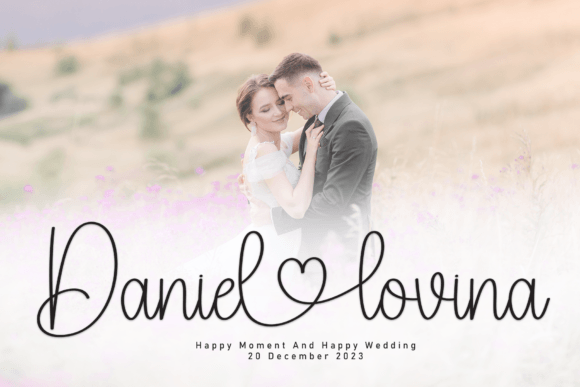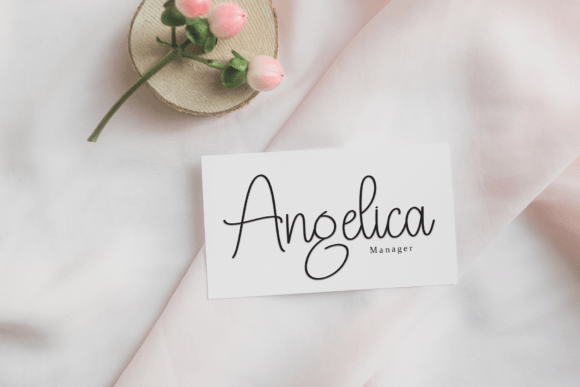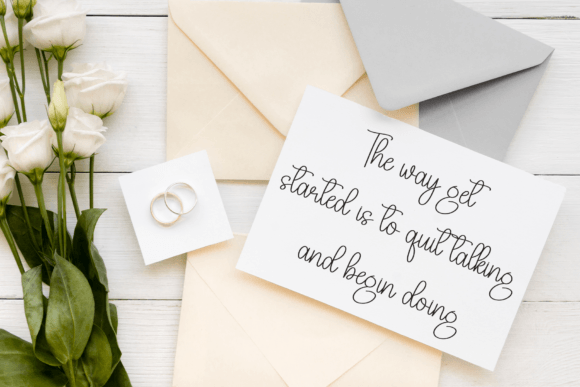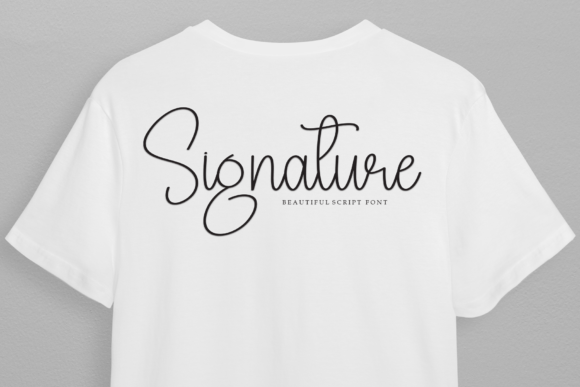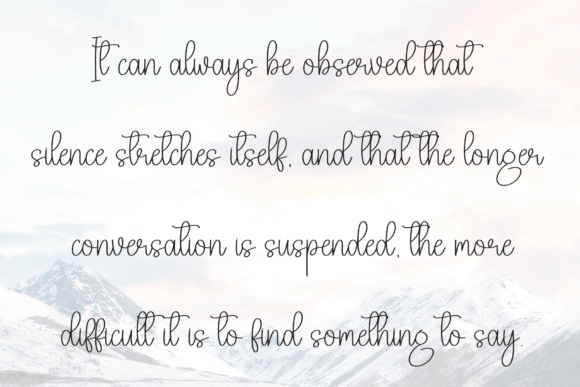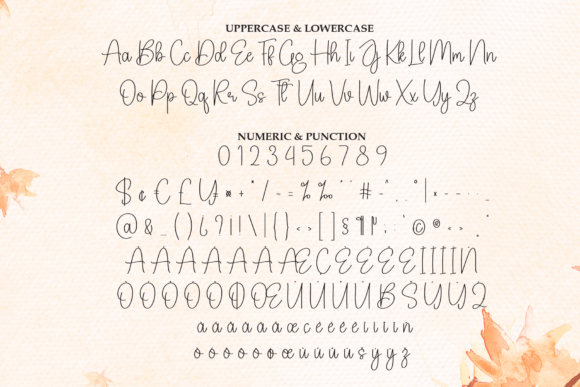
Discover the Charm of Best Time Font: Elevate Your Designs with a Sweet and Friendly Handwritten Style
Are you on the hunt for a font that can add a touch of warmth and personality to your designs? Look no further than Best Time Font, a sweet and friendly handwritten font that’s perfect for a wide range of creative projects. With its natural and unique style, Best Time Font is incredibly versatile and can be used to create stunning designs that capture the imagination.
The Characteristics of Best Time Font
Best Time Font is a beautifully crafted handwritten font that’s designed to evoke a sense of friendliness and approachability. Its natural, flowing lines and subtle imperfections give it a charming, organic feel that’s perfect for designs that need to connect with their audience on a personal level.
One of the standout features of Best Time Font is its incredible versatility. Whether you’re working on a branding project, a social media graphic, or a craft project, this font can adapt to any style or theme. From whimsical and playful to elegant and sophisticated, Best Time Font can help you create designs that are both visually appealing and effective.
The Benefits of Using Best Time Font
So why choose Best Time Font for your next design project? Here are just a few benefits of using this amazing font:
- Unique and eye-catching: Best Time Font is a one-of-a-kind font that’s sure to grab attention and leave a lasting impression.
- Versatile: Whether you’re working on a digital project or a print project, Best Time Font can adapt to any style or theme.
- Easy to read: Despite its handwritten style, Best Time Font is incredibly easy to read, making it perfect for designs that need to communicate a message clearly.
- Customizable: With its wide range of uses and adaptability, Best Time Font can be customized to fit your unique design needs.
How to Use Best Time Font in Your Designs
Best Time Font is incredibly easy to use, even if you’re new to font design. Here are a few tips to get you started:
- Pair it with bold fonts: For a striking contrast, pair Best Time Font with bold, sans-serif fonts to create a visually appealing design.
- Experiment with colors: Best Time Font looks great in a wide range of colors, from bright and bold to soft and pastel.
- Add some texture: For a more organic feel, add some texture to your design using Best Time Font.
Ideal Projects for Best Time Font
Best Time Font is perfect for a wide range of design projects, including:
- Branding and logos: Create a unique and memorable brand identity with Best Time Font.
- Social media graphics: Use Best Time Font to create eye-catching social media graphics that stand out from the crowd.
- Craft projects: Add a personal touch to your craft projects with Best Time Font.
- Invitations and cards: Create beautiful, handmade-style invitations and cards with Best Time Font.
In conclusion, Best Time Font is a sweet and friendly handwritten font that’s perfect for designers and crafters looking to add a touch of warmth and personality to their designs. With its natural and unique style, Best Time Font is incredibly versatile and can be used to create stunning designs that capture the imagination.